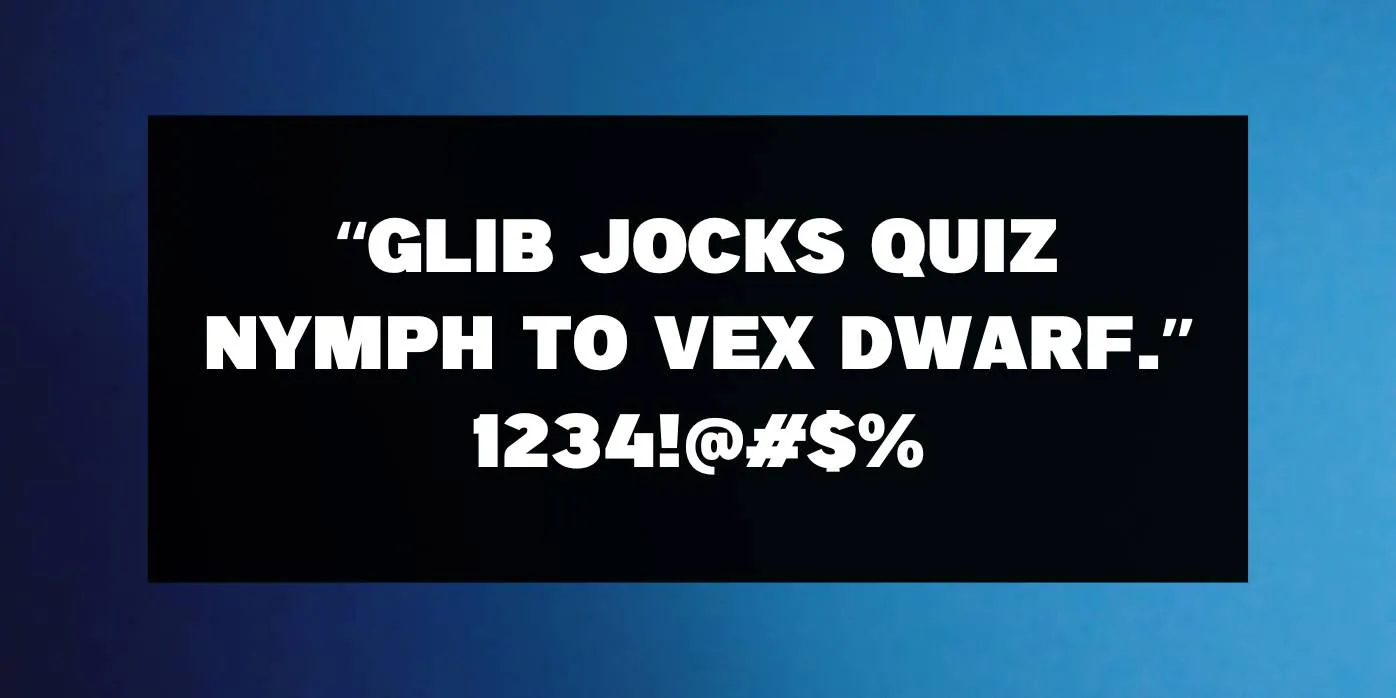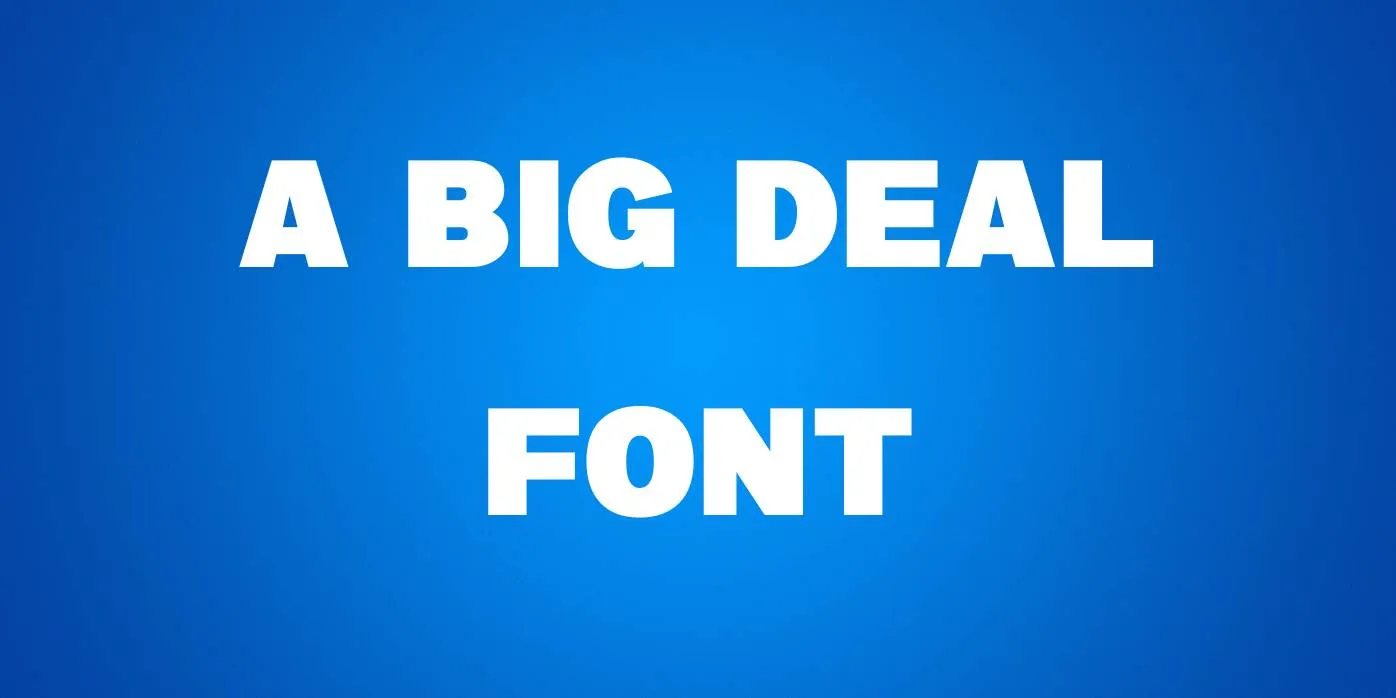
A Big Deal Font
A Big Deal Font is a sans serif type of font. The characters of this texture are bold, classic, and highly readable. Wep is the developer of this texture. The characters of this typeface are suitable and fine to be used in various types of projects and designs. This texture is available in OTF and TTF file formats.